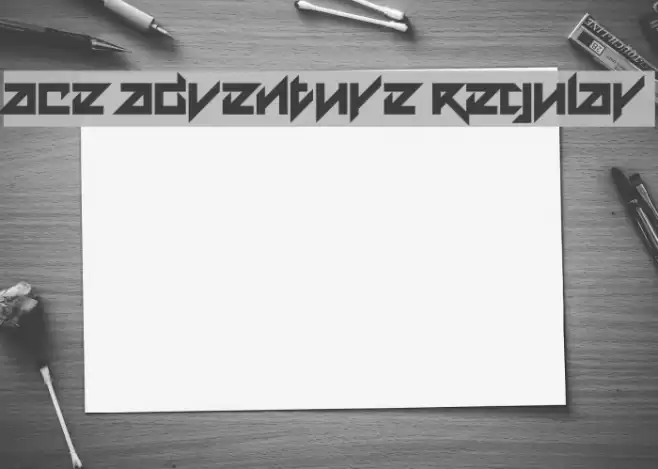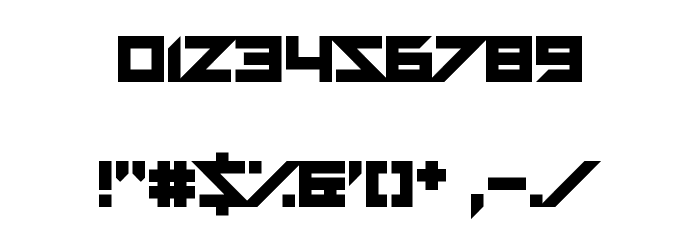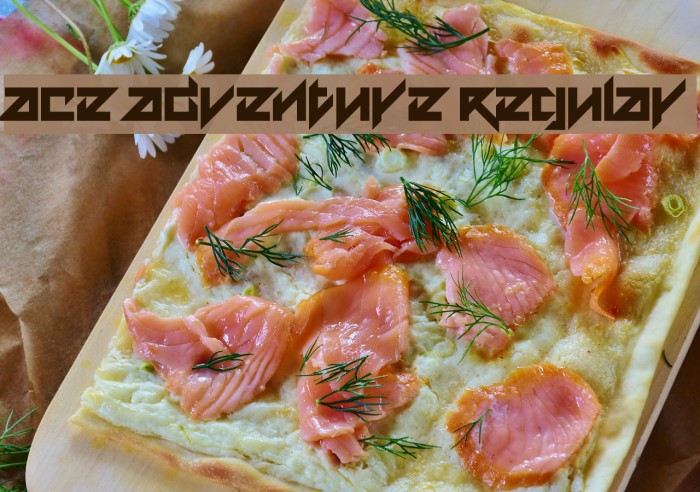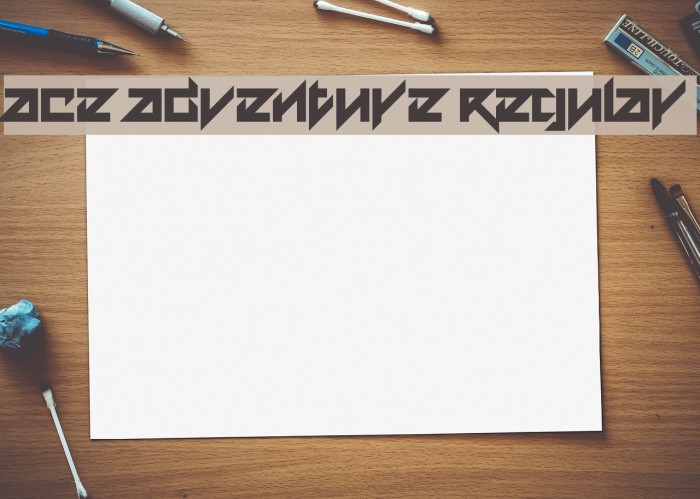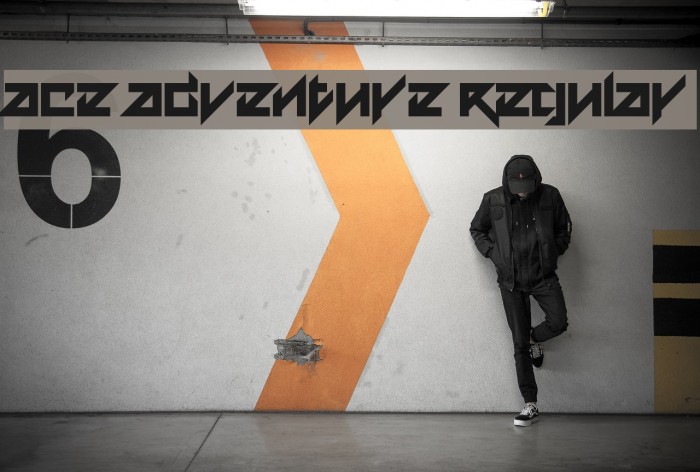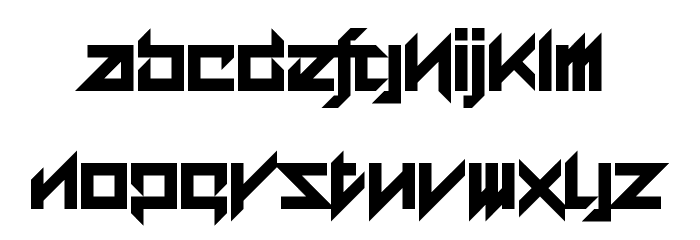
Ace Adventure Regular Font
Ace Adventure Regular Description
This font features a bold, geometric design with sharp angles and a futuristic aesthetic. The characters are constructed with a consistent thickness, giving them a solid and robust appearance. The angular cuts and unique shapes create a dynamic and edgy look, making it stand out in any design. The uppercase and lowercase letters maintain a uniform style, while the numbers and special characters complement the overall design with their distinct forms. This font is ideal for projects that require a modern and adventurous feel.
A bold, geometric font with sharp angles and a futuristic style from Uncategorized fonts.
- Proposed Projects: Perfect for video game titles, sci-fi movie posters, tech branding, and adventure-themed graphics.
- Overall Style: Futuristic, Edgy